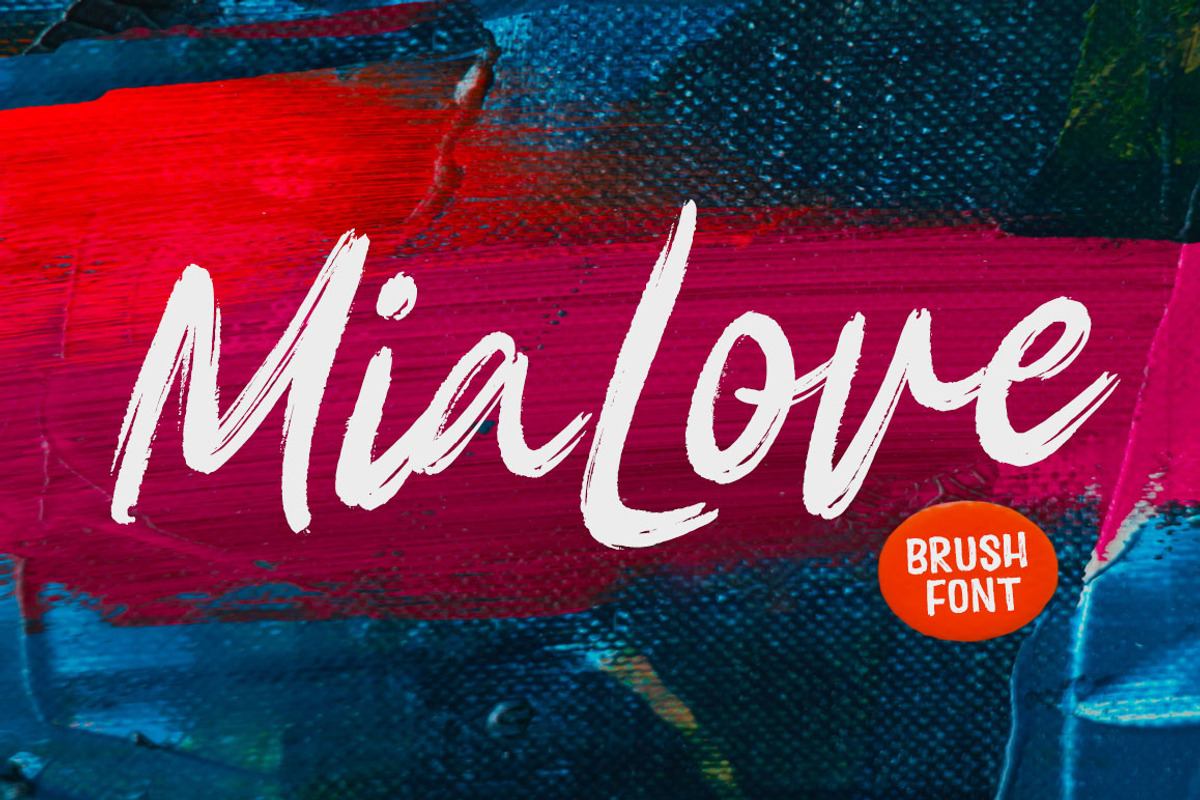
Mia Love Brush Font Free Download is a bold, expressive script typeface with a hand-painted brush style that radiates energy and personality. With its sweeping curves, textured strokes, and casual elegance, this font is perfect for romantic quotes, fashion branding, social media graphics, wedding invitations, and creative poster designs.
Mia Love captures the raw, handcrafted feel of brush lettering, making your text stand out with artistic flair and heartfelt emotion. Whether you’re working on a bold headline or a soft, romantic message, this font delivers charm and impact in every letter.